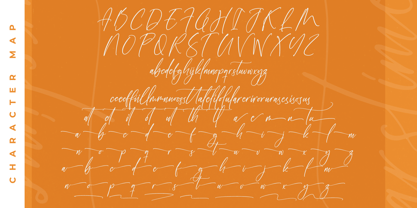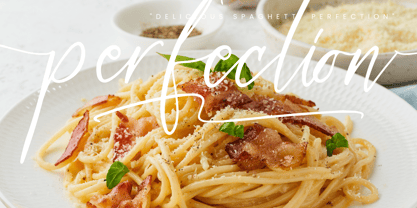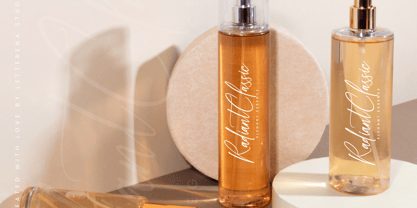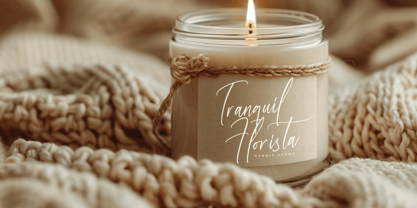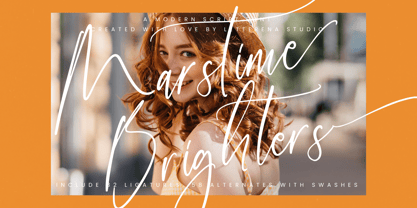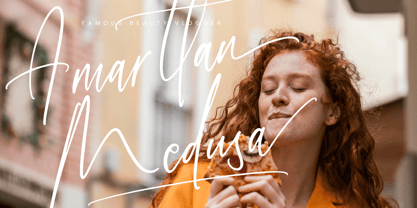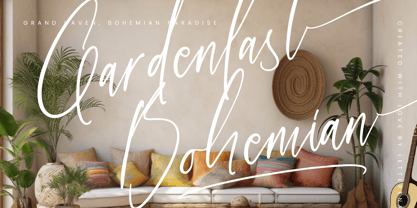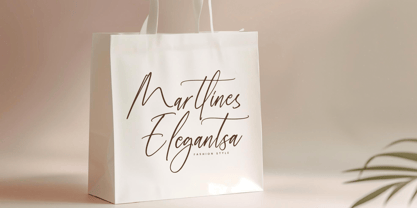
Marstime Brighters
The Marstime Brighters Font Family was designed by Heru Utama Putra and published by Letterena Studios. Marstime Brighters contains 2 styles and family package options.
Marstime Brighters – Modern Script Font , from Letterena, is a Luxury Script font, suitable for any projects such as: logos, branding projects, homeware designs, product packaging, mugs, quotes, posters, shopping bags, t-shirts, book covers, name card, invitation cards, greeting cards, label, photography, watermark, special events, and all your other luxury and beautiful projects that need a Luxury Script taste.